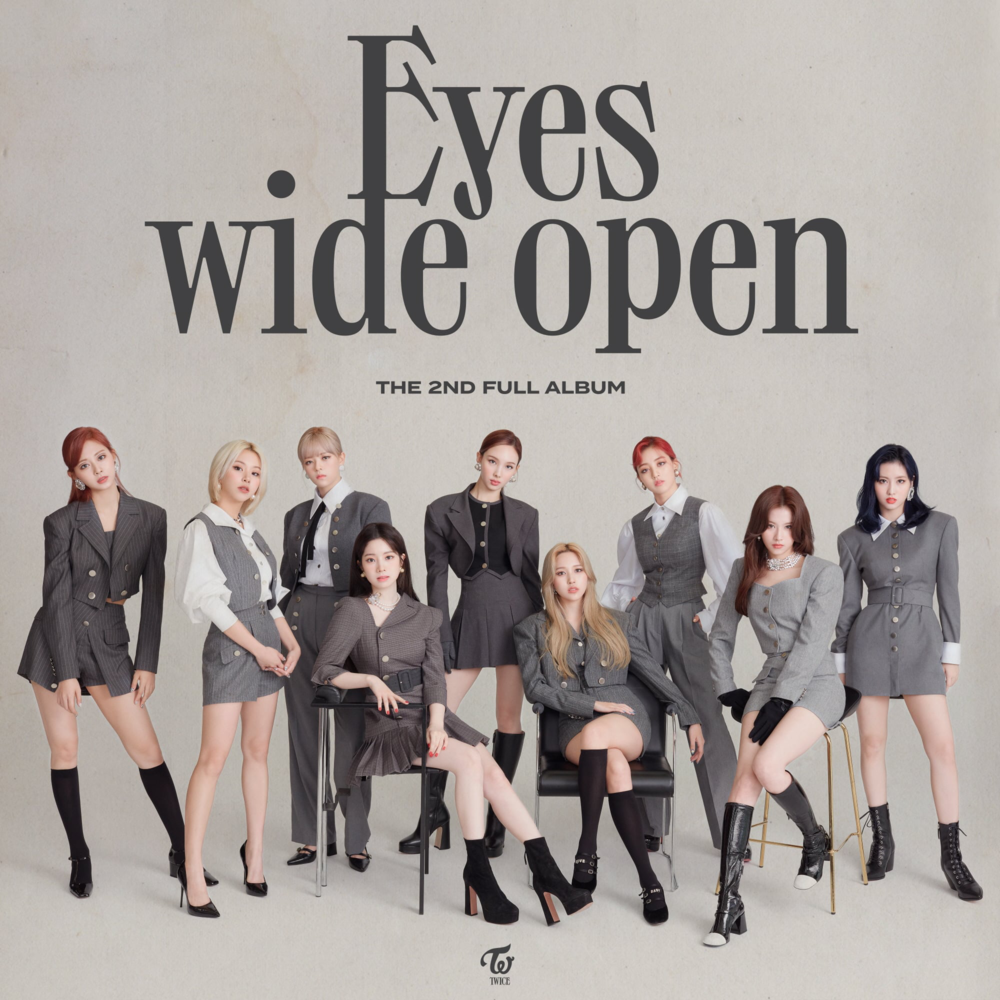
Eyes Wide Open (album) Font
The "Out Of The Dark" album cover art showcases a font called Toy, designed by Philipp Herrmann. The display serif font is based on the title lettering of an Italian magazine, "Le Vie d'Italia e dell'America Latina," published from 1917 to 1968.